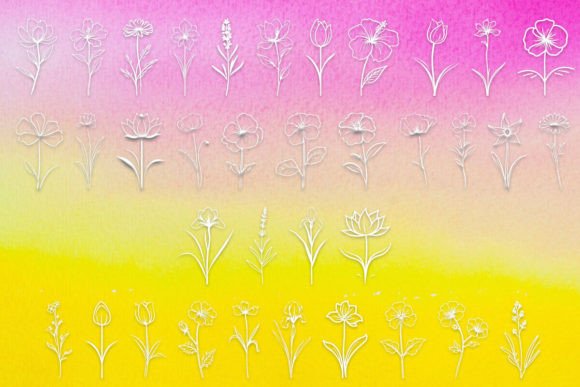
Introducing Happy Flower Font: The Ultimate Dingbats Collection for Creative Designs
Are you tired of using the same old fonts for your designs? Do you want to add a touch of whimsy and playfulness to your projects? Look no further than the Happy Flower Font collection, a delightful set of dingbats fonts that will elevate your designs to the next level. In this article, we’ll explore the features and benefits of Happy Flower Font, and how it can help you create stunning designs that radiate positivity and creativity.
What is Happy Flower Font?
Happy Flower Font is a unique collection of dingbats fonts that combines vibrant letters and playful numbers to create a captivating visual experience. This charming set of characters is designed to add a touch of joy and positivity to your designs, making it perfect for a wide range of creative projects. Whether you’re designing invitations, crafting personalized gifts, or enhancing your digital content, Happy Flower Font is the perfect choice.
Key Features of Happy Flower Font
- Vibrant Letters and Playful Numbers: Happy Flower Font features a beautiful set of vibrant letters and playful numbers that are sure to add a pop of color and fun to your designs.
- Whimsical Designs: The Happy Flower collection is designed to be whimsical and playful, making it perfect for designers and crafters who want to add a touch of personality to their projects.
- Versatile: Happy Flower Font can be used for a wide range of creative projects, including invitations, gifts, digital content, and more.
Benefits of Using Happy Flower Font
So why choose Happy Flower Font for your designs? Here are just a few benefits of using this delightful dingbats collection:
- Adds a Touch of Whimsy: Happy Flower Font adds a touch of whimsy and playfulness to your designs, making them stand out from the crowd.
- Boosts Creativity: The Happy Flower collection is designed to inspire creativity and positivity, making it perfect for designers and crafters who want to push the boundaries of their imagination.
- Perfect for DIY Projects: Happy Flower Font is perfect for DIY projects, such as crafting personalized gifts, designing invitations, and creating digital content.
- Easy to Customize: Happy Flower Font can be easily customized to fit your design needs, making it simple to use in a wide range of creative projects.